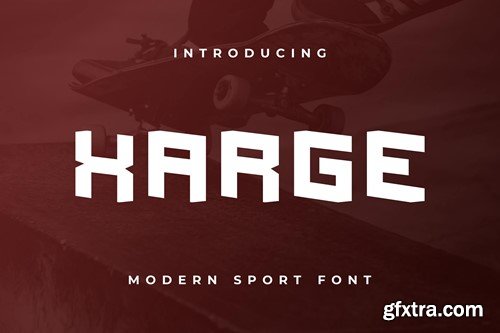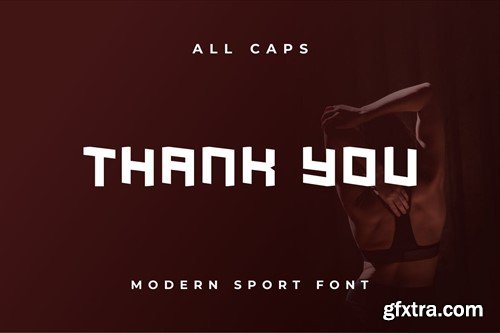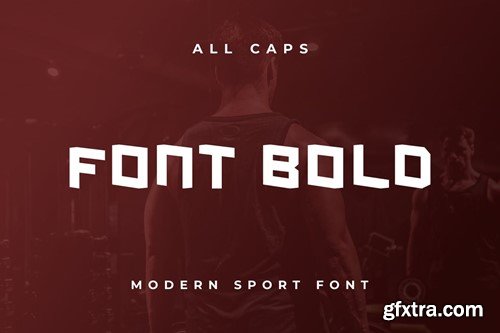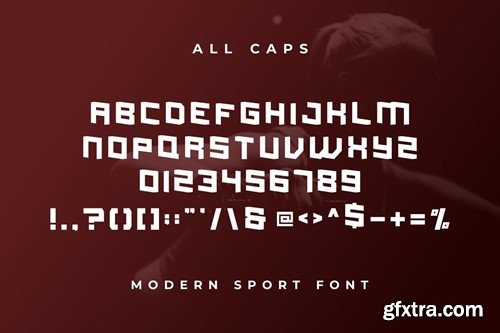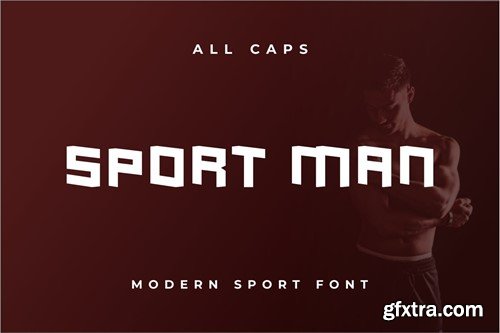
Xarge Font 4GR7YWY
Xarge Font
Introducing our new product Xarge Font - Modern Font is a bold and authentic display font. The font is suitable for any branding project like logo, esport, and many more. outstanding in a wide range of contexts. availlable